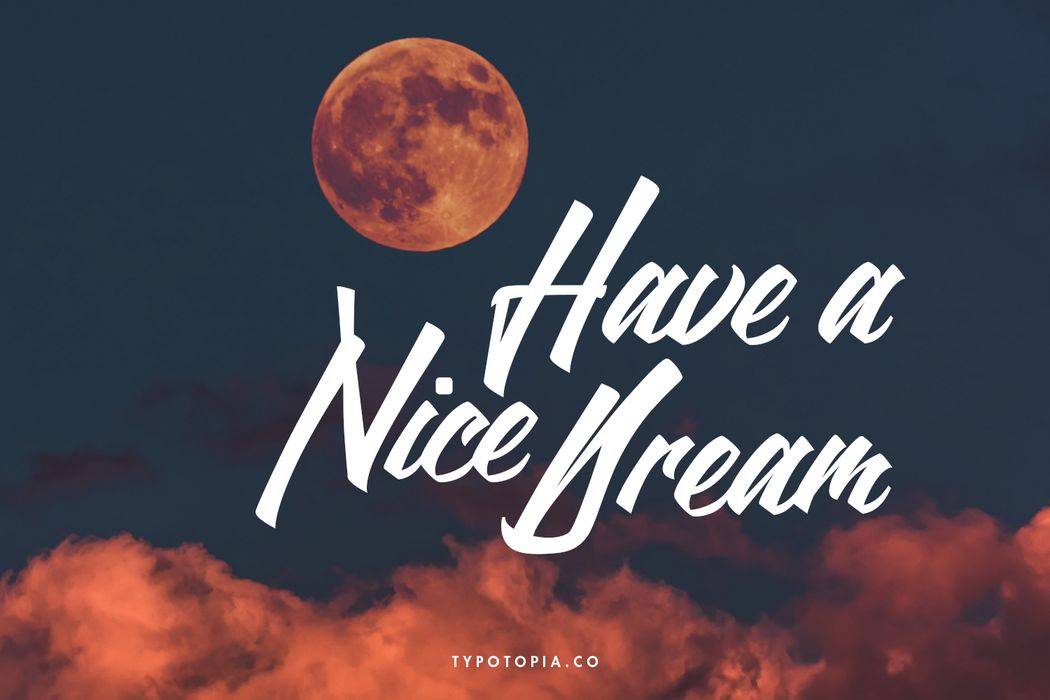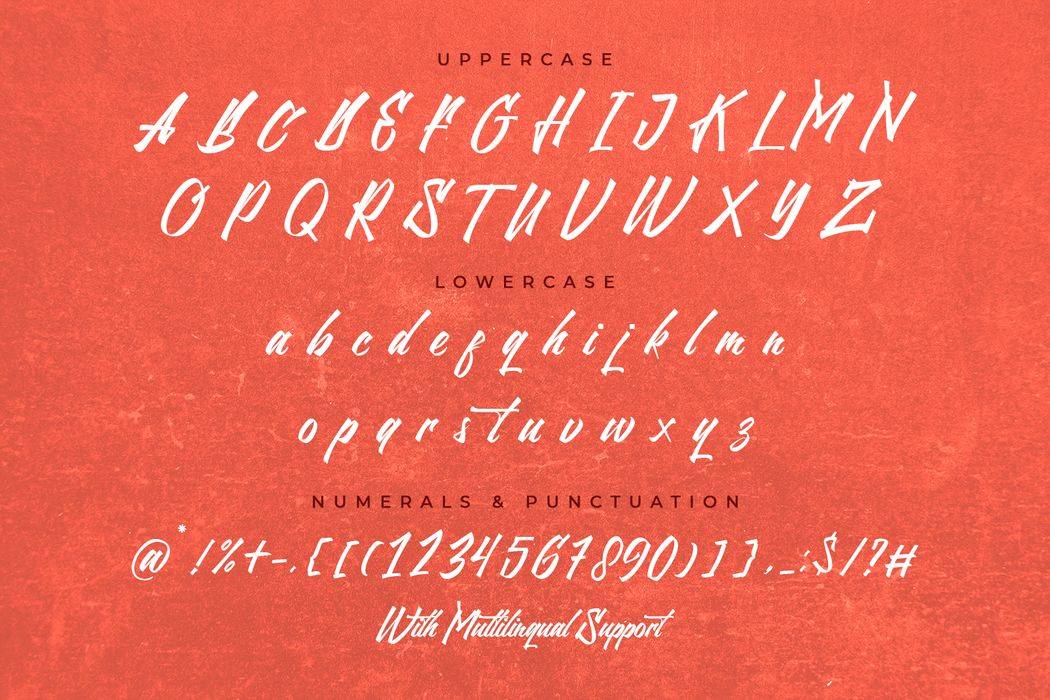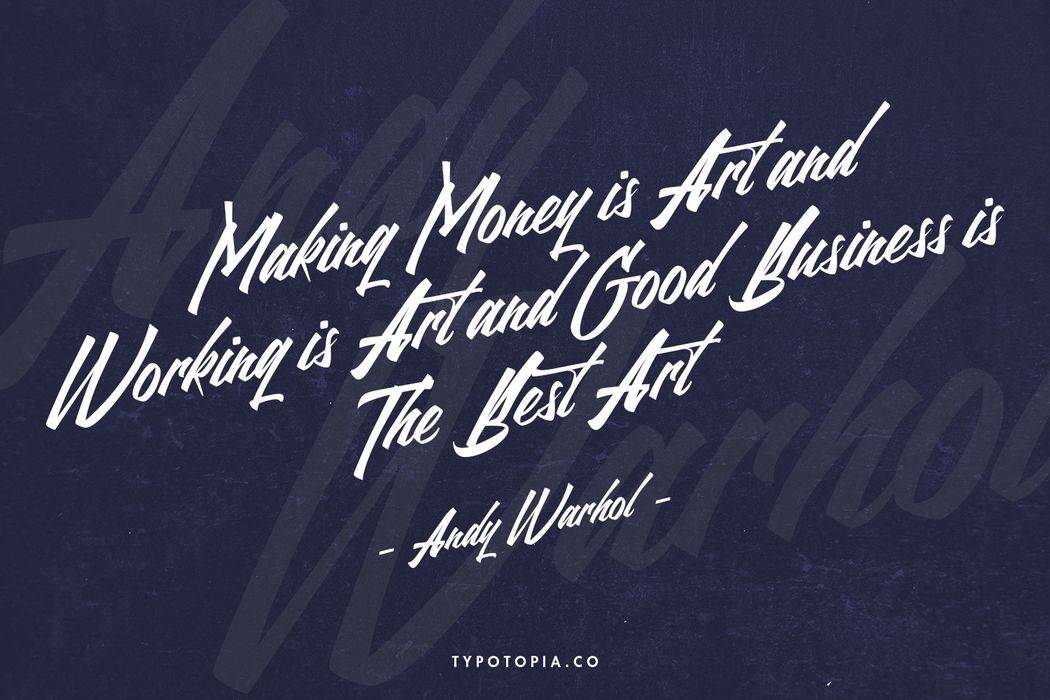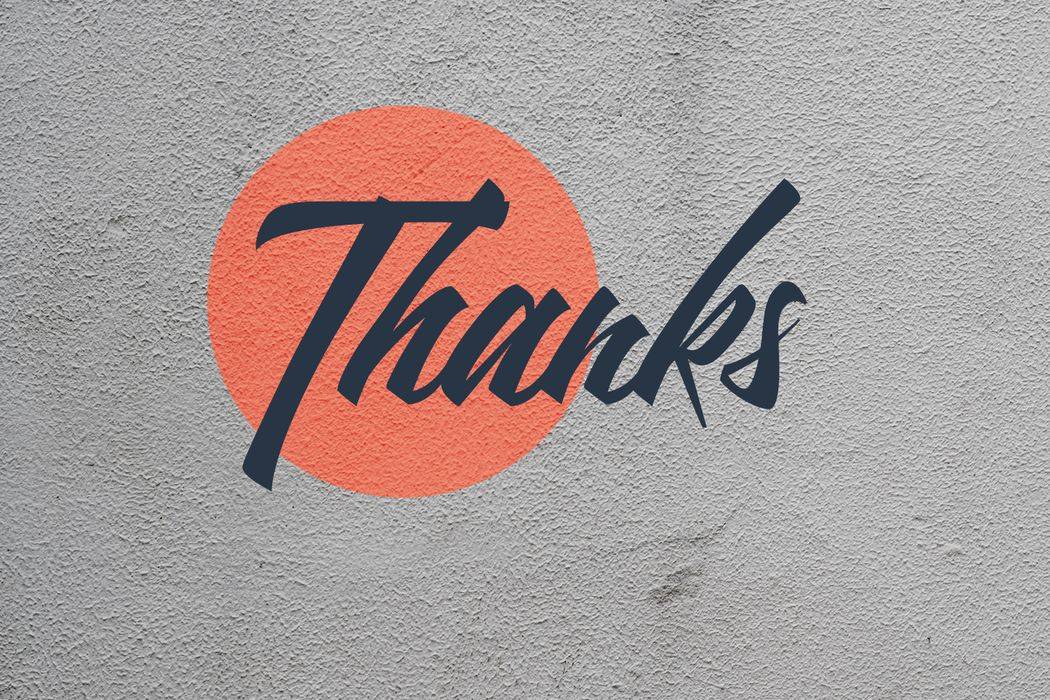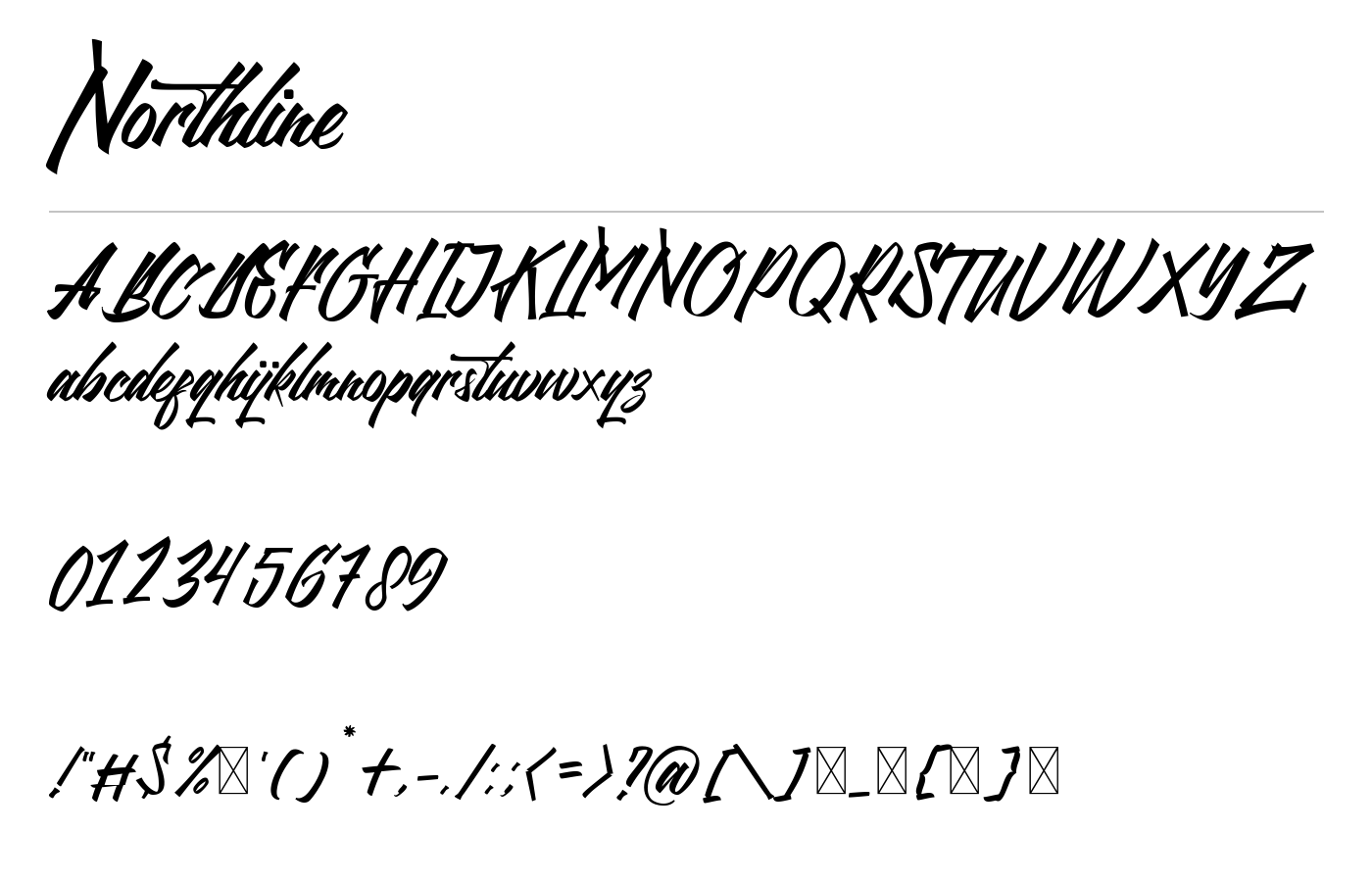
Northline is a dynamic script font with a bold and energetic flair, featuring sharp, angular strokes and a slightly condensed form that gives it a modern yet expressive feel. Its flowing letterforms and distinctive character shapes work well for creative branding, headlines, or any design seeking a stylish, attention-grabbing look with a confident personality.
Northline Font
About Northline Font